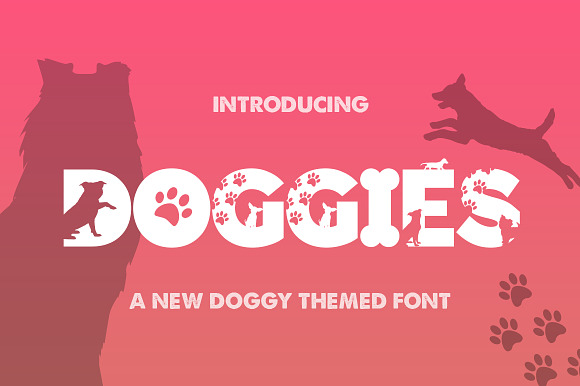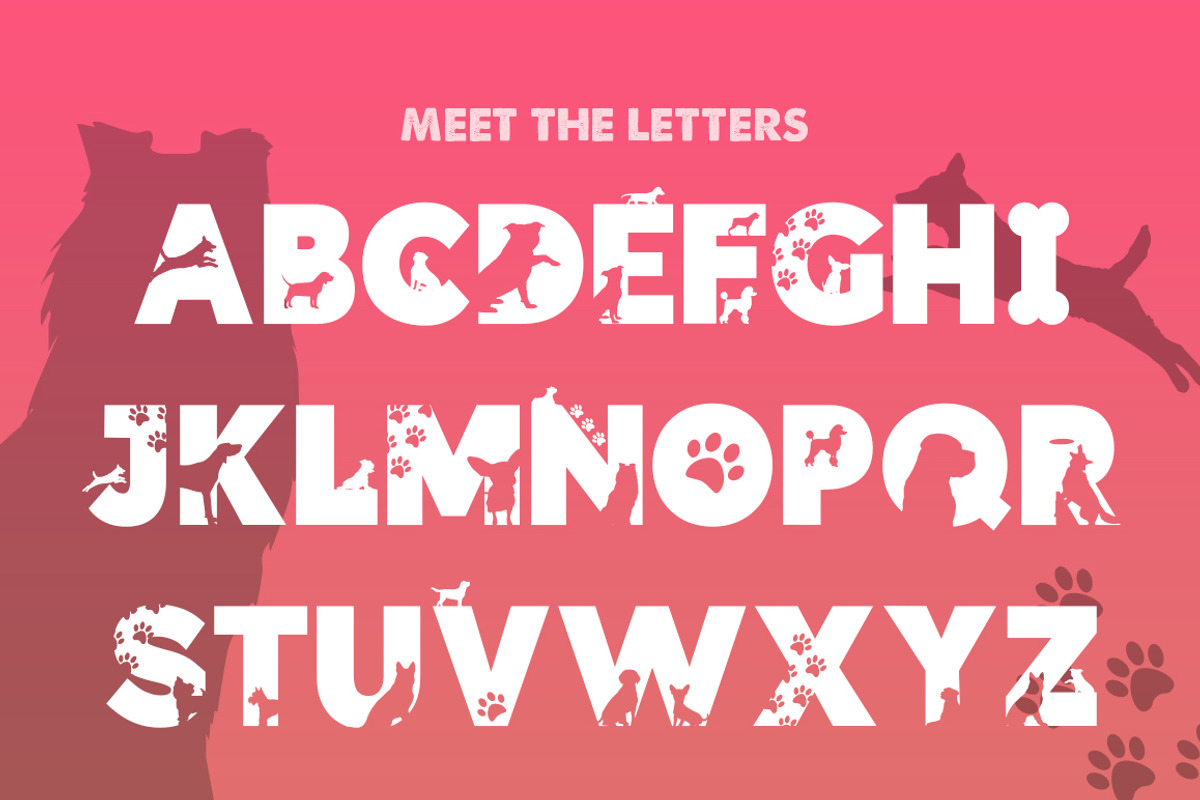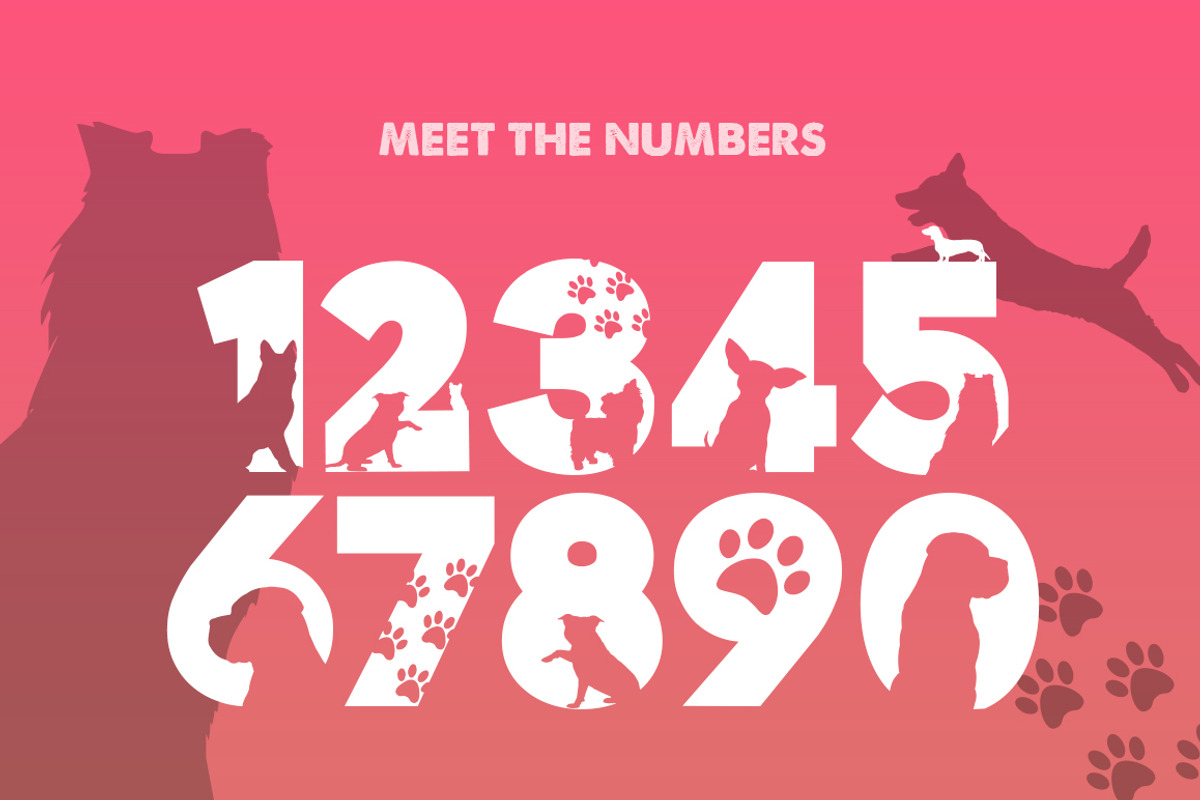
Doggies Silhouette Font
Why Doggies Silhouette Font is worth a look
Doggies Silhouette Font by Salt & Pepper Designs fits naturally into Branding, posters, packaging, typography.